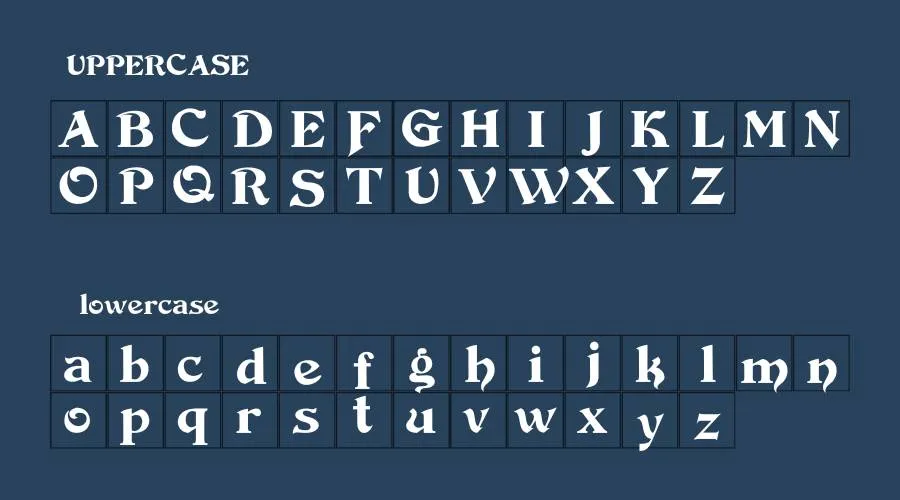
About Devinne Swash Font
The Devinne Swash Font is a stunning and good-looking typeface. This font belongs to the category of the Retro texture family and was invented by Dieter Steffmann with a unique type of texture and style. This font is suitable for CSS and adobe photoshops.
You can utilize this outstanding typeface with velvet font and make new attractive projects. This font contains a unique type of style and 203 glyphs. It includes 212 stunning characters of the alphabet set such as uppercase letters, numeric, digits, symbols, numeric, and punctuations.